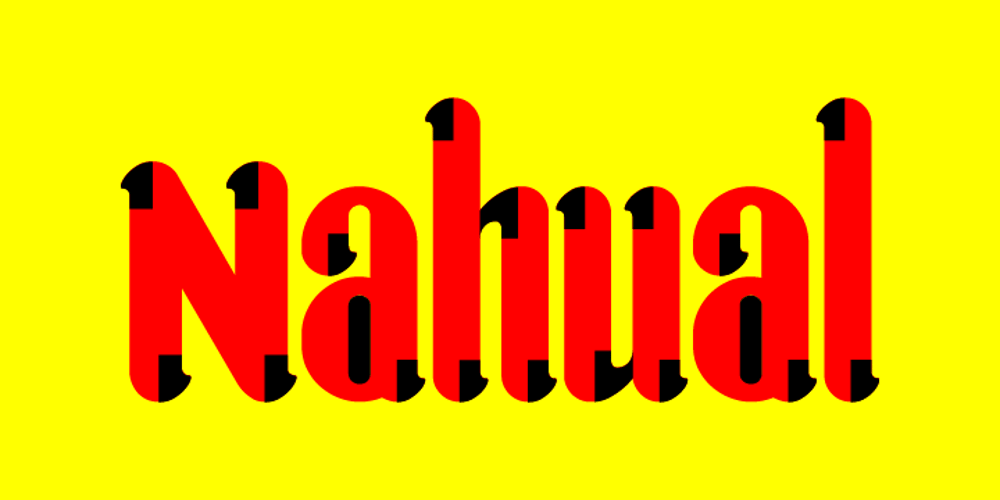
Nahual Claw
Nahual Claw font
Nahual Claw Font Family was designed by published by Rodrigo Navarro Bolado. Nahual Claw contains 1 styles and family package options. From the depths of an antique civilization is born “Nahual” inspired by my ancestral Prehispanic Culture, with traits that allows it to mimetize itself, hours of painstaking dirty work with the only goal to show all it knows we want to see, to finally give the Jaguar “Serifclaw” attack. This is a display fontface, it comes in two types, “Claw” basically the text font, and “Copete” that are the construction pieces for every single glyph of the entire font, this last also has the negative spaces of some glyphs (a, e, o, A, B, O, for example) I include them but I prefer the font without them. Comments are welcome! rodrigonabo@gmail.com